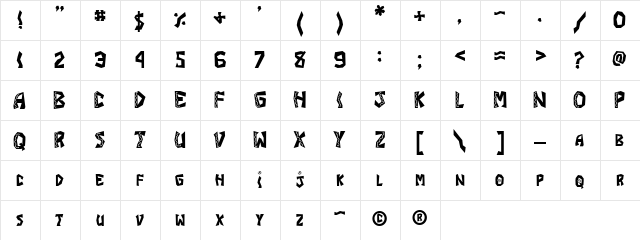
JI Burrito Font Preview
JI Burrito JI Burrito
JI Burrito Font Details
| Style | JI Burrito |
| Designer | Jeri Ingalls |
Design Context for JI Burrito Typeface
JI Burrito is a composed and adaptable typeface that performs quietly and consistently across a wide range of design contexts.